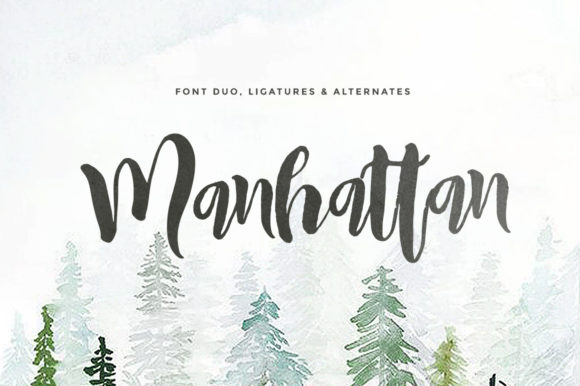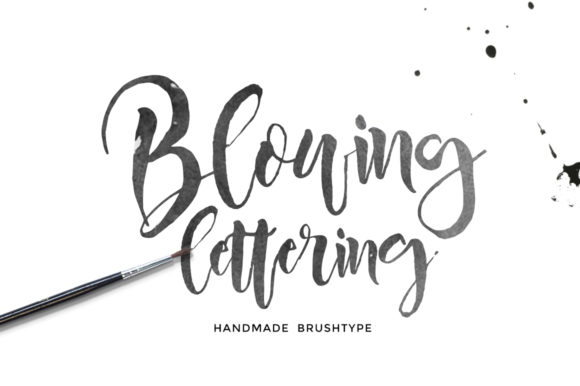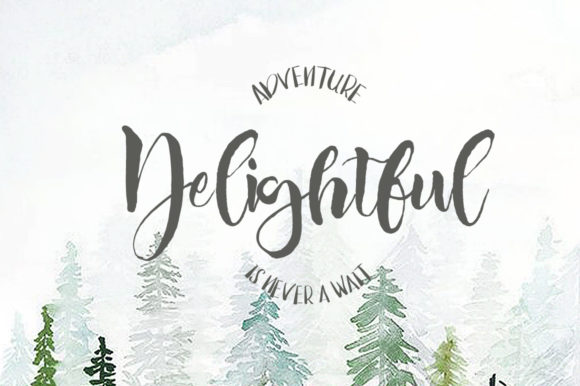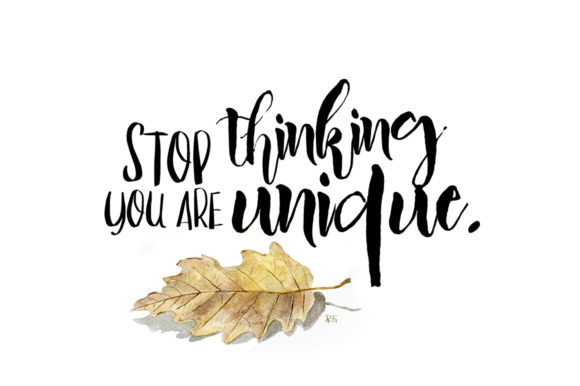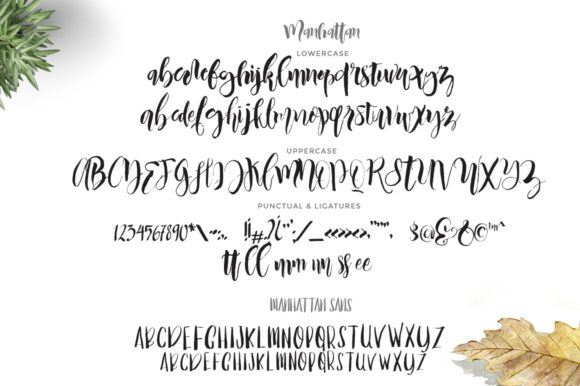
Manhattan Font
About Manhattan Font
Manhattan is a casual and cute handwritten font, created by using a brush pen. Clean and a little bit quirky, this font is the perfect fit for all of your logos, branding, social media, and crafty DIY projects.